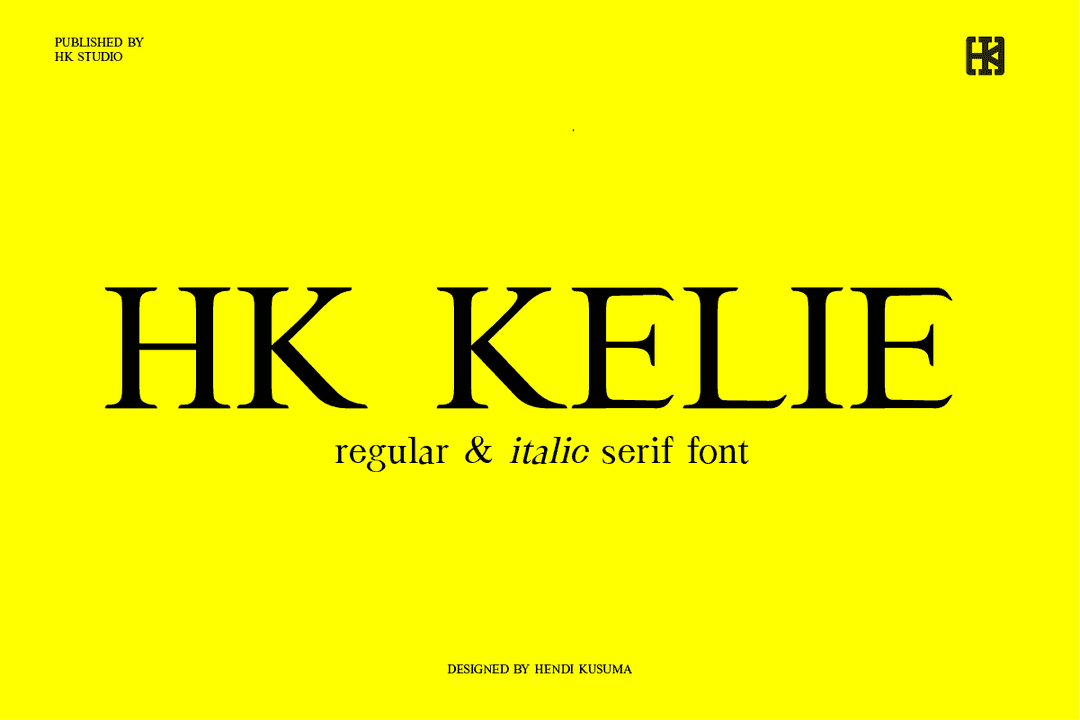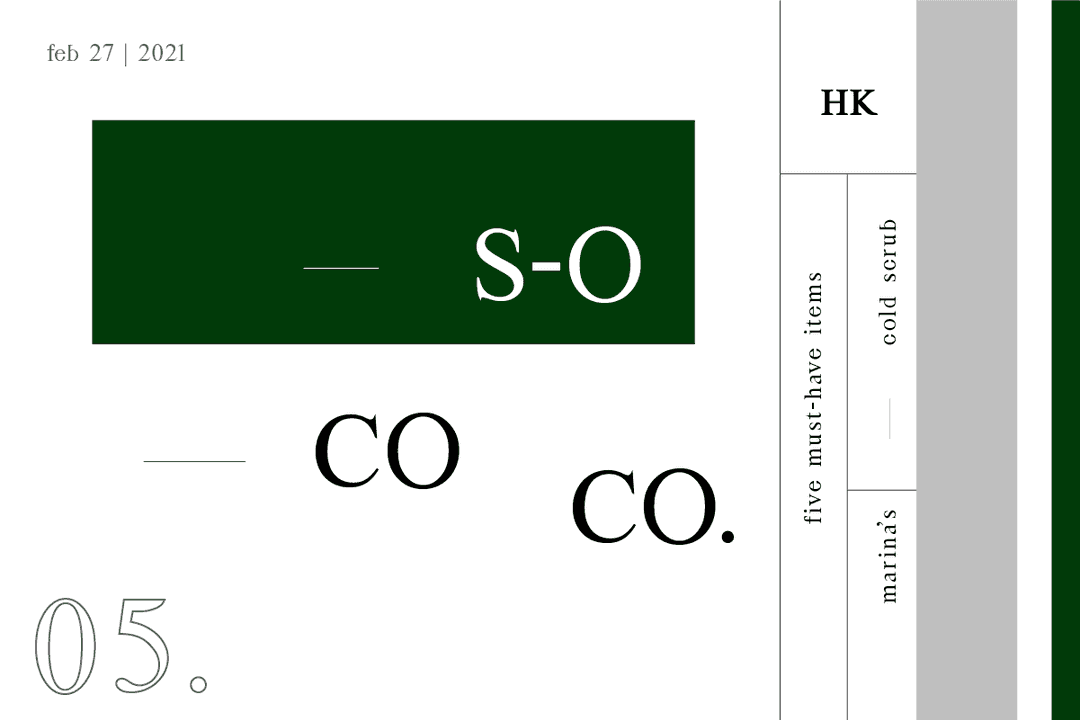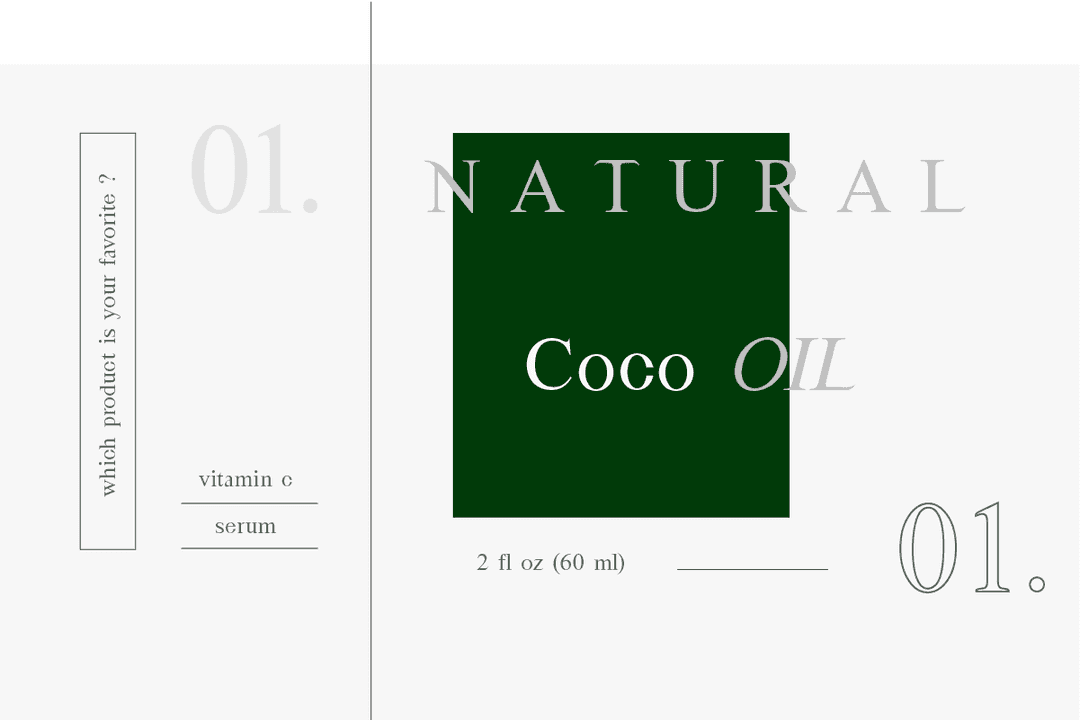
HK Kelie is an authentic, bold serif font that exudes authenticity and assertiveness. This font easily blends in to any variety of work; be sure to incorporate it into your creative ideas for an extra splash! You will see them rise!